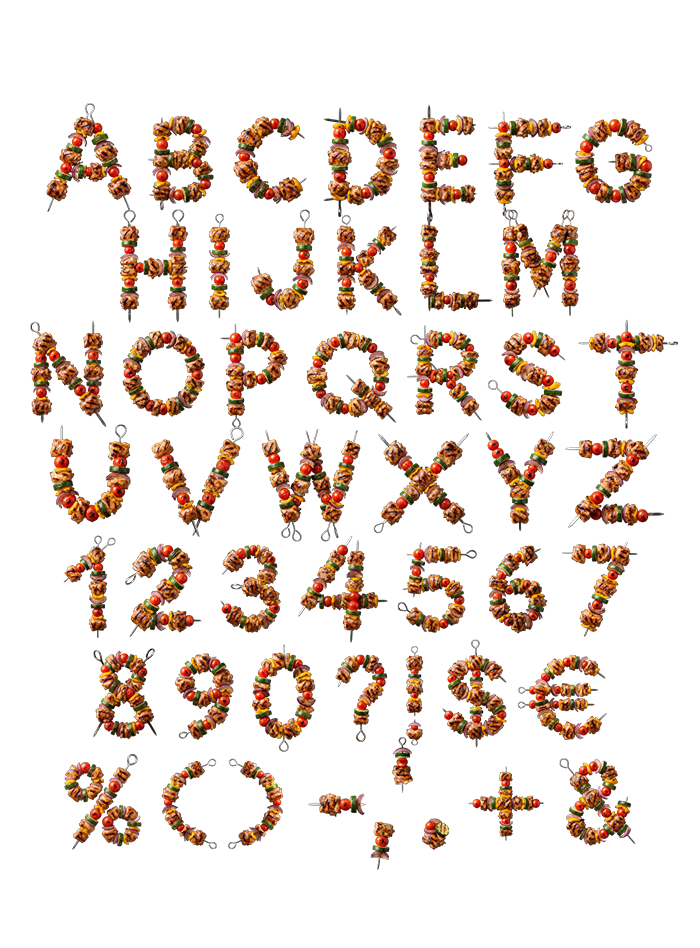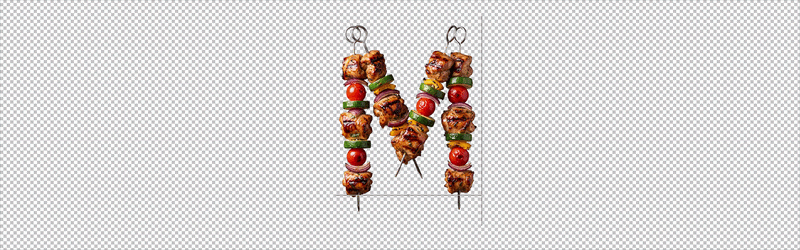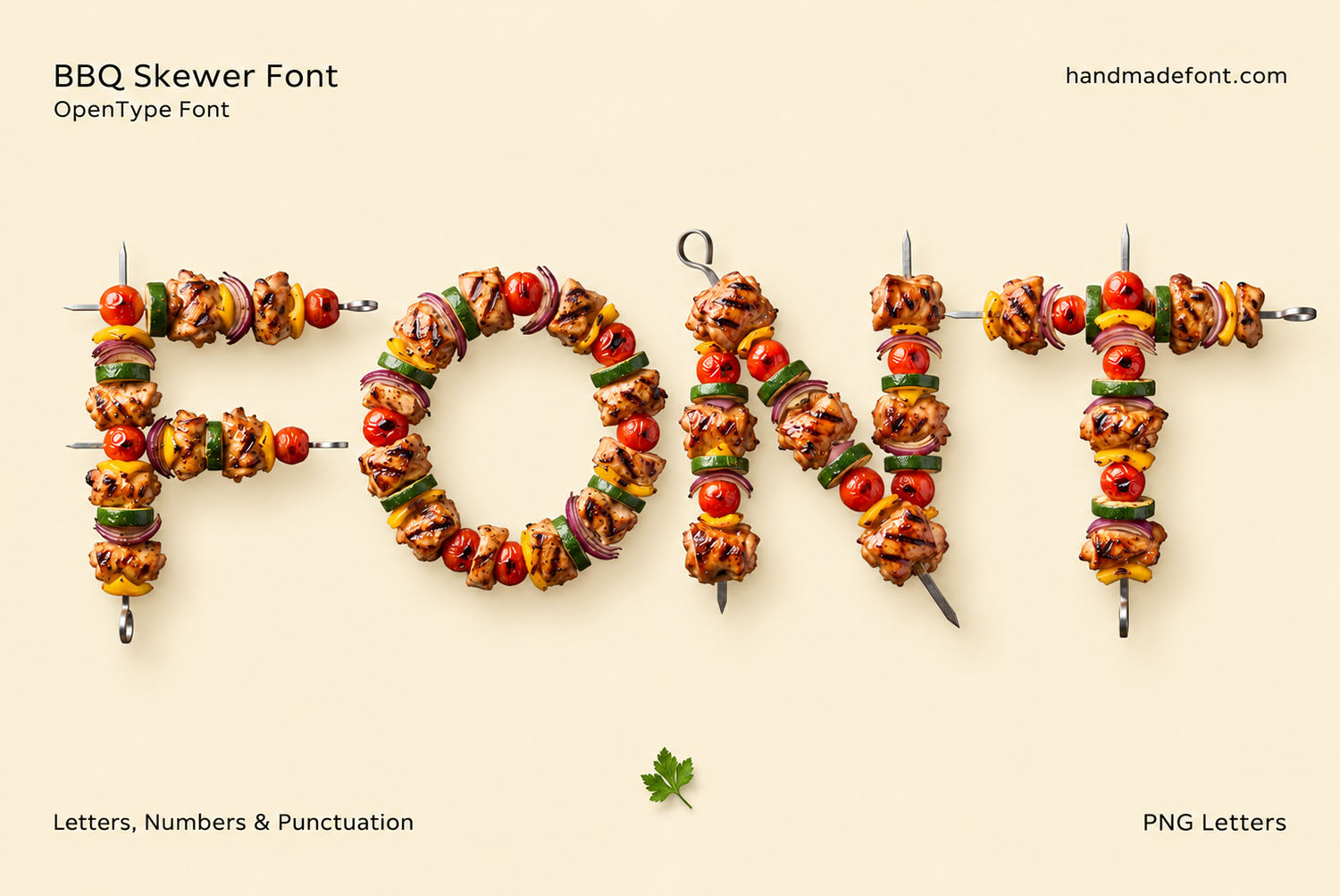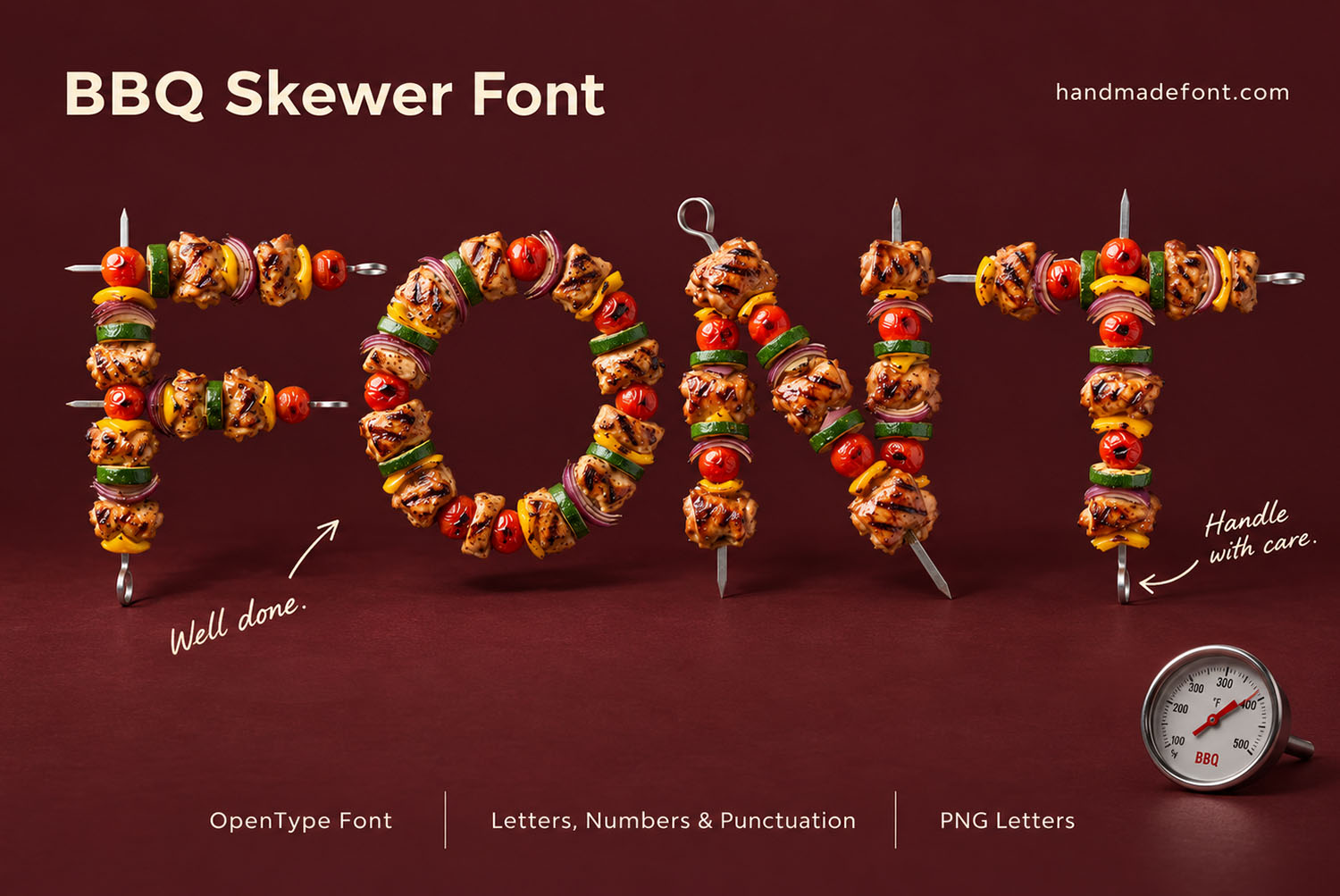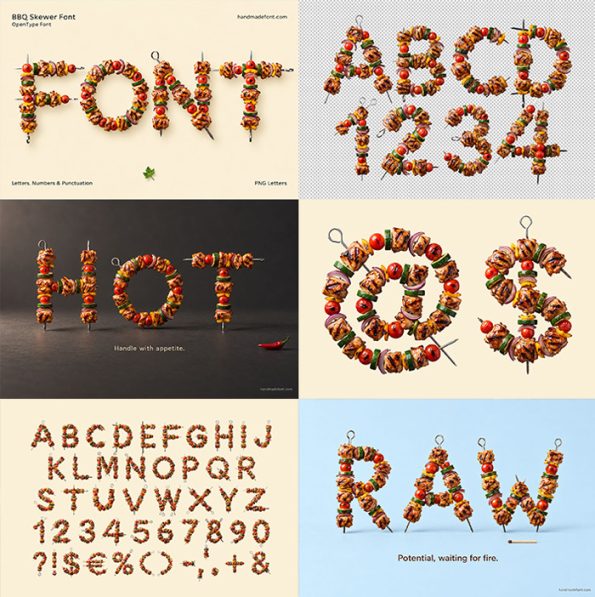
BBQ Skewer Font. Kebab Letters on Metal Skewers
Letters threaded onto metal skewers and cooked over coals: grilled chicken, cherry tomatoes, courgette, red onion and yellow pepper, with the char marks left on. The looped handles and sharp points stick out past every glyph, so the alphabet keeps its bite. It arrives as an OTF you type with, plus separate transparent PNG letters, numbers and punctuation.
The BBQ Skewer Font Comes Straight Off the Grill
Every letter here is a fully loaded skewer, because the name is not a metaphor. Charred chicken sits shoulder to shoulder with cherry tomatoes, courgette, red onion and yellow pepper too. Naturally, the metal stick runs right through the middle of each glyph. Its looped handle and sharp point stick out past the letterform, so nothing sits quite still. Meanwhile the grill marks land dark and slightly uneven, never repeating. Above all, the meat still looks juicy.
Warm Food, Cold Steel
The BBQ Skewer Font also keeps to the browns, reds and greens of a real barbecue plate. Since the pieces are threaded loosely, small gaps open up between them. The counters of A, O and R therefore stay readable at a glance. In addition, the steel draws a cool line through all that warm food. Though the letters look hand-loaded, their proportions hold steady. Numbers, currency signs and punctuation follow the same recipe, of course.
Animated letter of the BBQ Skewer Font on a transparent background
Where the BBQ Skewer Font Earns Its Keep
In fact, anyone who cooks over fire has a use for this alphabet. The letters run big and loud, and besides, one word beats a paragraph here. We tried it on a roadside billboard, then a printed poster and a canvas tote. Likewise it holds up on a T-shirt and across a magazine spread. Furthermore, menu boards, festival flyers, delivery boxes and butcher windows all suit it. Summer, after all, does half the selling for you.
The word FONT set in the BBQ Skewer Font on a cream background
Alphabet, numbers and punctuation chart of the BBQ Skewer Font on cream
At sign and dollar sign of the BBQ Skewer Font made from skewered food
Letters A to D and numbers 1 to 4 of the BBQ Skewer Font on a transparent background
The word RAW in the BBQ Skewer Font on a pale blue background
Roadside billboard at dusk with SMOKE written in the BBQ Skewer Font
Printed poster on a wall with GRILL set in the BBQ Skewer Font
The word DONE in the BBQ Skewer Font resting on a stone plinth
Canvas tote bag with PARTY printed in the BBQ Skewer Font
The word YUM in the BBQ Skewer Font on a deep red background
T-shirt printed with FEAST in the BBQ Skewer Font
Open magazine spread with TASTE as a headline in the BBQ Skewer Font
The word HOT in the BBQ Skewer Font on a dark grey background
The word BBQ in the BBQ Skewer Font on a yellow background
Cover card for the BBQ Skewer Font with FONT written on a deep red background